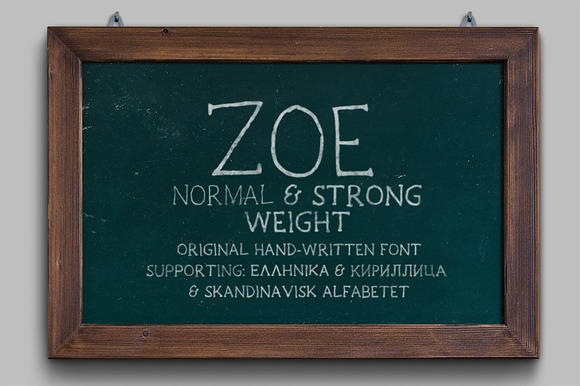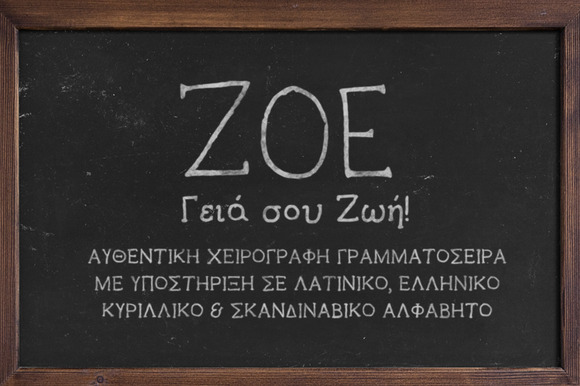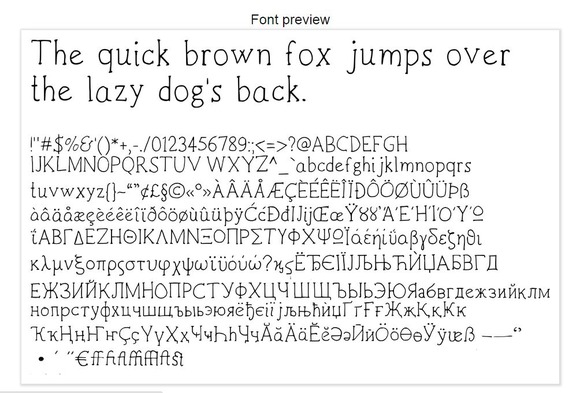
Zoe Handwritten Font
The font family is most suitable for headlines of all sizes. Zoe font is applicable for any type of graphic design in print graphics and perfect for logos, badges, t-shirts and other items like posters. Also I recommend it for Wedding Invitations and other romantic events.
Included are
• Zoe Regular
• Zoe Strong
SUPPORT FOR (see preview images)
• GERMAN / SCANDINAVIAN / FRENCH CHARACTERS
• GREEK CHARACTERS
• CYRILLIC CHARACTERS
• LIGATURES
• PUNCTUATION MARKS